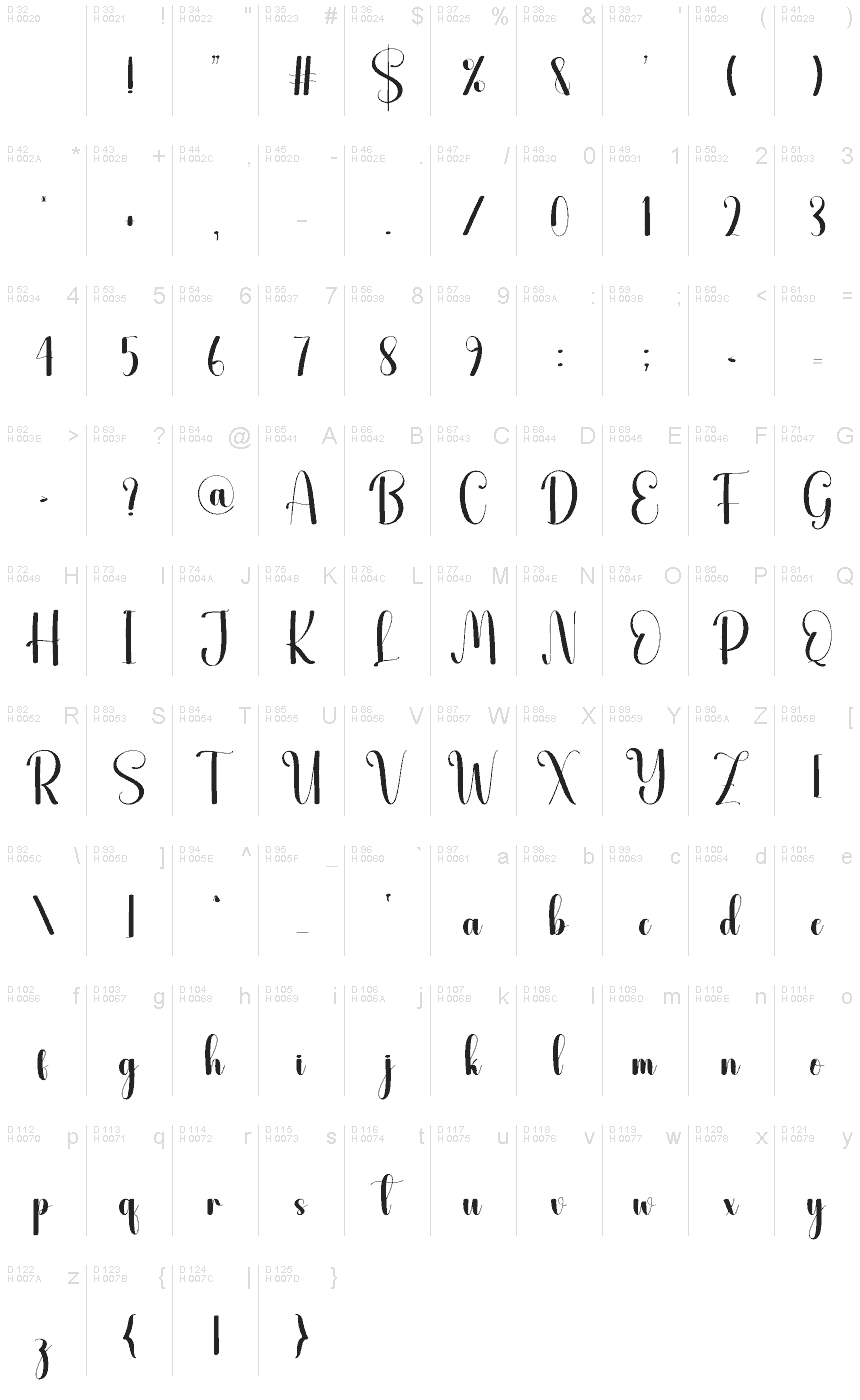
Breaktime
Breaktime font by Andi Moz is a free calligraphy font that highlights elegance, sophistication, and expressive creativity. With its flowing lines and modern appeal, this stylish resource allows both beauty and practicality in various design projects. It presents unmistakable artistic characteristics that can be useful to type design professionals and beginners alike.
An ideal choice for poster designs, T-shirts, book covers, advertising creations, typography magazine concepts or articles. It also works perfectly on branding/visual identity projects like logos or business cards.